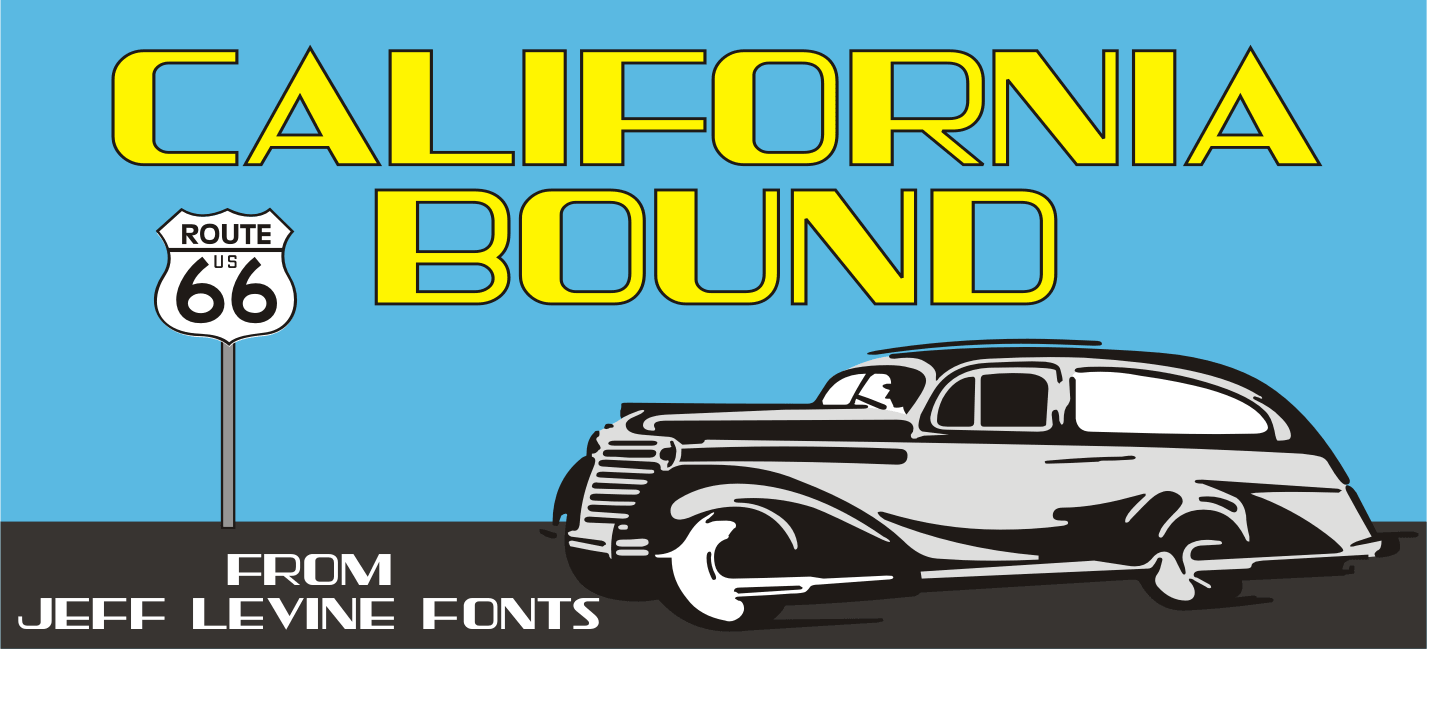
California Bound JNL is a display sans and art deco font published by Jeff Levine Fonts.
California Bound JNL is based on the hand lettering found on the side of the old California Zephyr passenger trains; the route now being a part of Amtrak.
This somewhat unusual Art Deco design is more utilitarian than decorative, yet it still captures the “Streamline Era” perfectly.